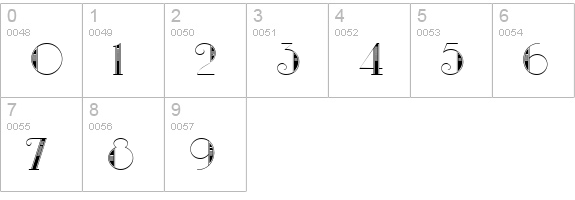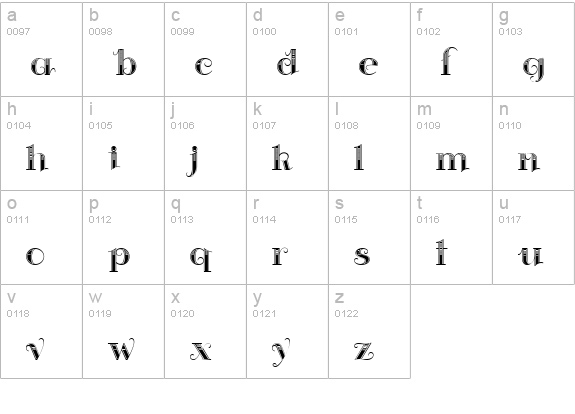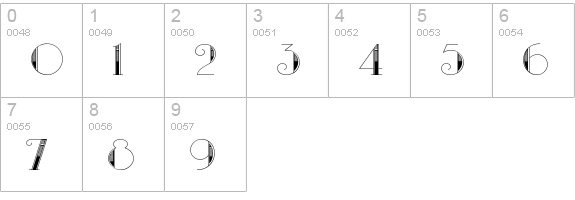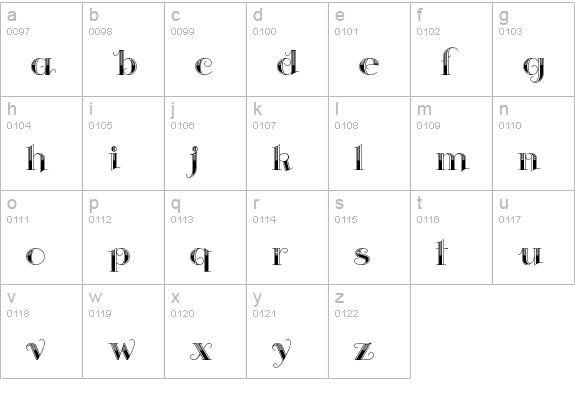
FiresideChatNF Font Details
FiresideChatNF font is a charming and elegant typeface that exudes warmth and nostalgia. Its flowing lines and gentle curves evoke the cozy ambiance of a crackling fire on a cold winter night. Perfect for adding a touch of rustic charm to your designs, this font is versatile and easy to read. And the best part? FiresideChatNF font is completely free to download at FontsMarket.com, making it accessible to everyone looking to add a touch of sophistication to their projects. Don't miss out on this beautiful font that will bring a touch of warmth and nostalgia to your designs. Download FiresideChatNF font today and let your creativity shine!